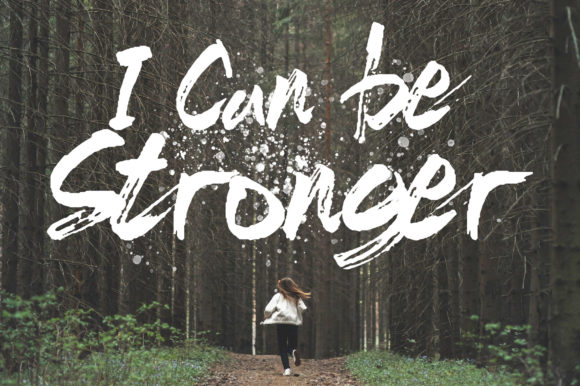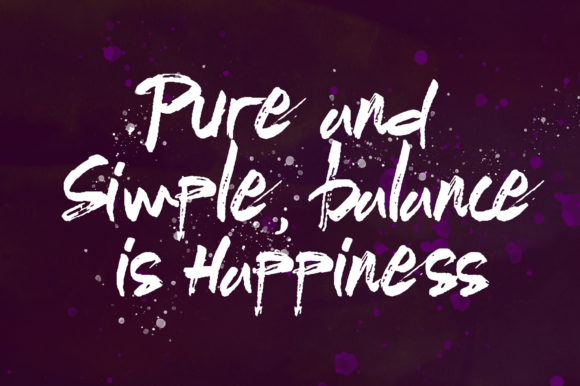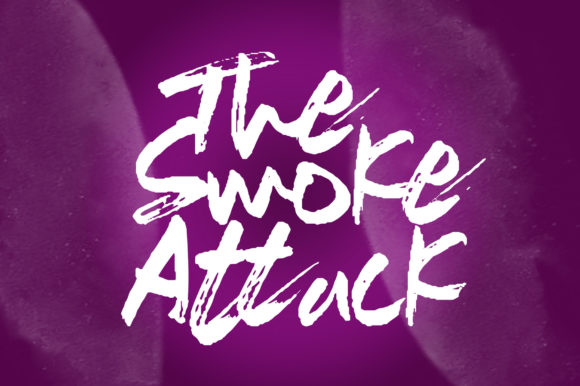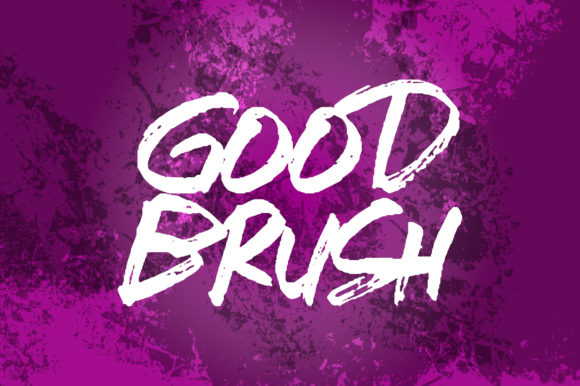
Shigosh Fasto Font
About Shigosh Fasto Font
Shigosh Fasto is a cool, brushed handwritten font, featuring a street art vibe. This casual font will effortlessly turn any design project into a stand out!